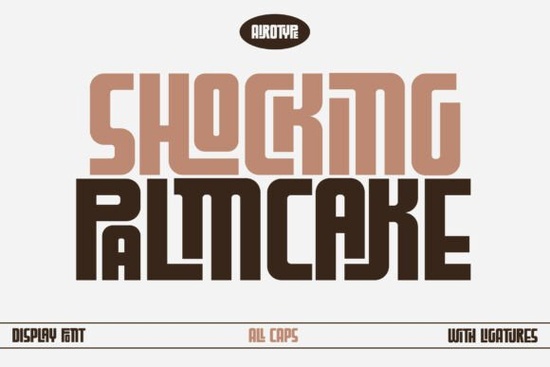
If you’ve been scrolling through display fonts looking for something that feels both nostalgic and fresh, Shocking Palm Cake Font might be exactly what your next project needs. It’s an all-caps, ligature-rich typeface with bold, condensed letterforms the kind that grabs attention without screaming. Rounded outer edges soften its presence, while sharp inner cuts give it a modern, almost architectural edge. Whether you’re designing merch, packaging, or social media banners, this font holds its own in crowded visual spaces.
Who should actually use this font?
It’s not for every project and that’s okay. Shocking Palm Cake works best when you want to make a statement without relying on gimmicks. Think:
- Streetwear brands looking for logo or tagline fonts that feel urban but polished.
- Print-on-demand sellers creating mugs, posters, or tote bags with punchy phrases.
- Small business owners who need standout signage or packaging labels.
- Crafters and hobbyists making birthday cards, party invites, or vinyl decals with personality.
If you’ve tried other display fonts like Steel or Happy Brush and found them either too rigid or too loose, Shocking Palm Cake sits right in the sweet spot structured enough to feel intentional, playful enough to avoid feeling corporate.
What makes it different from other display fonts?
Most display fonts in the designer font category lean heavily into one aesthetic: retro, grunge, hand-drawn, or ultra-minimalist. Shocking Palm Cake blends two seemingly opposite vibes retro warmth and geometric precision. The ligatures (those connected letter pairs) help words flow naturally even at large sizes, which is rare in ultra-condensed fonts. You won’t get awkward spacing or letters that look like they’re fighting for room.
Also worth noting: it doesn’t try to be “cute” or “edgy.” It just exists as a confident, self-contained design tool. That neutrality makes it surprisingly versatile. Pair it with a clean sans-serif body font, and it elevates without overwhelming. Use it solo on a dark background, and it becomes the focal point effortlessly.
How do I know if it’ll work for my brand?
Ask yourself: does your brand voice have a little swagger? Not arrogance just quiet confidence. If your audience responds to bold simplicity (think boutique coffee shops, indie record labels, skate shops, or modern apothecary brands), this font aligns well.
It also scales beautifully. Whether you’re printing it small on a sticker or blowing it up for a billboard, the thick strokes hold detail without turning muddy. That’s not always true with stylized fonts some lose their character at smaller sizes. Shocking Palm Cake stays legible and intentional.
If you’re still unsure, compare it visually with fonts like Welcome Christmas (which leans festive) or its own product page for real-world mockups. Seeing it applied helps more than any description.
Any tips for using it without overdoing it?
Absolutely. Because it’s so bold, less is more.
- Use it for headlines only. Don’t set paragraphs in this. It’s meant to draw eyes, not guide them through long text.
- Pair with generous whitespace. Let the font breathe. Crowding it with other elements dulls its impact.
- Stick to one weight. There’s no italic or light version and that’s intentional. It’s designed to stand alone, not blend in.
- Avoid busy backgrounds. Solid colors or subtle gradients work best. Patterns compete with its geometry.
And if you’re layering it with illustrations or photos, keep those elements minimal too. This font doesn’t play second fiddle and that’s why people choose it.
Where can I see it in action?
The product page includes mockups for posters, apparel, and packaging, but you can also search Creative Fabrica’s gallery for user-uploaded projects. Seeing how others have used it especially crafters and small biz owners gives you practical inspiration beyond marketing samples.
You might also explore similar vibes in the designer display fonts section if you want alternatives with the same energy but slightly different shapes. Sometimes seeing what isn’t quite right helps you confirm what is.
Before you download, here’s a quick checklist:
- ✅ Do you need a headline or logo font? (Not body text.)
- ✅ Is your design space clean or minimal? (Avoid cluttered layouts.)
- ✅ Are you okay with all-caps only? (No lowercase included.)
- ✅ Does your brand voice match its confident-but-not-loud tone?